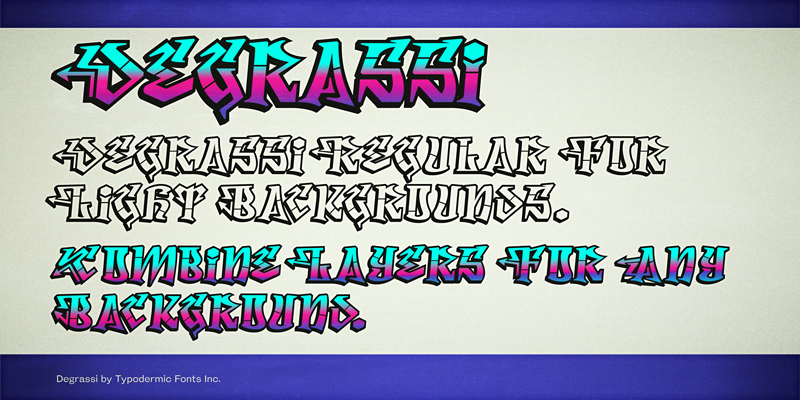
Font name: | Degrassi |
Degrassi is a somewhat wack, graffiti inspired font. These fonts include a license that allows free commercial use: sometimes referred to as a desktop license. This allows you to install the fonts on a computer and use them to create posters, web graphics, game graphics, t-shirts, videos, signs, logos and more. Read the license agreement for details. If you'd like to embed these fonts in an app, ebook, on the web or anything that's not covered by the desktop license agreement, visit the link below. You'll find distributors who offer different types of licenses or you can contact me for help. http://typodermicfonts.com/degrassi/ |